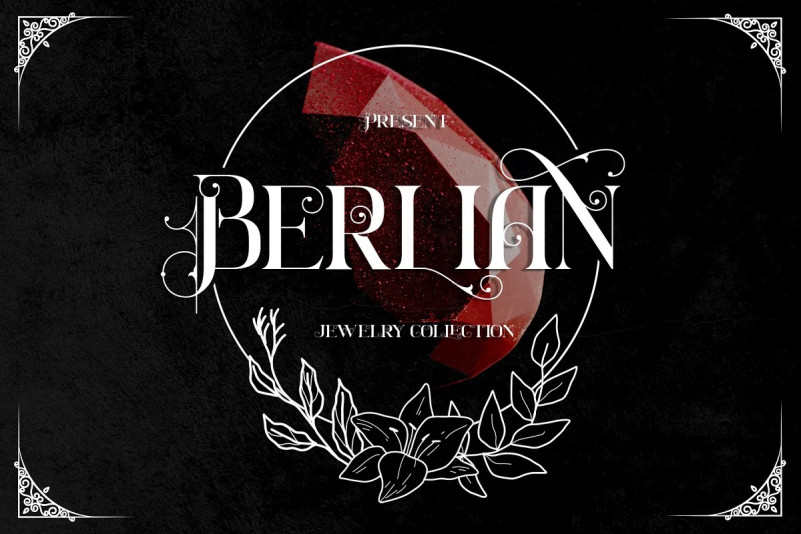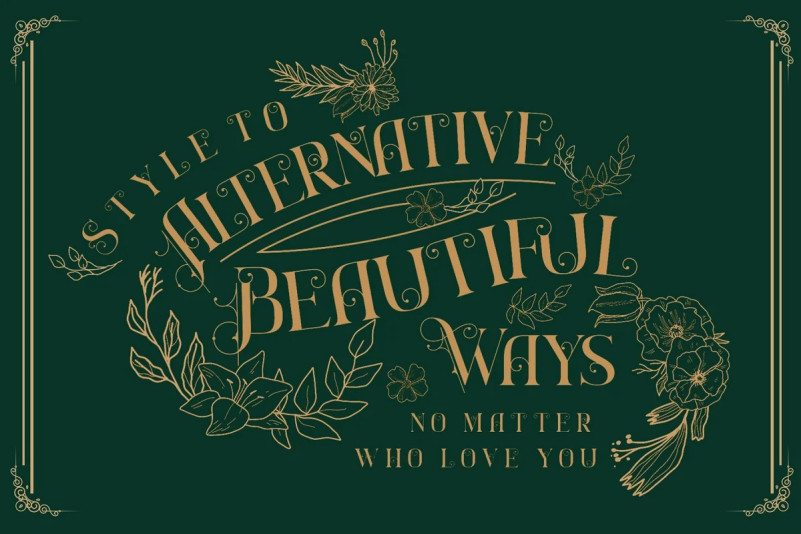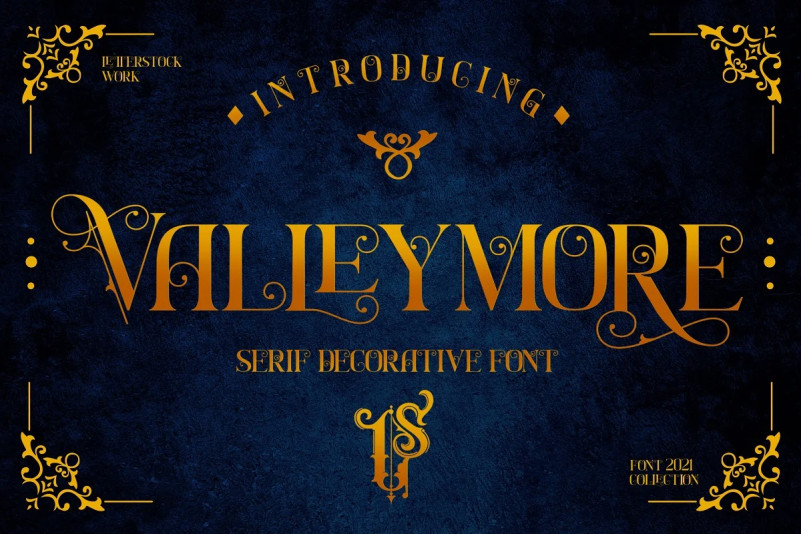
Valleymore Font
Valleymore Serif Font. This pair was inspired by elegant calligaphy poster design that i saw on some coffee shop, It was crafted by hand specially to add natural handmade feeling in its brand identity than i make it clean with pentool.
Opentype features Valleymore font has 210 character set included Valleymore Font is very good looking in logo, calligraphy, elegant lettering, wedding invitation, labels, product packaging, invitations, advertising and others.